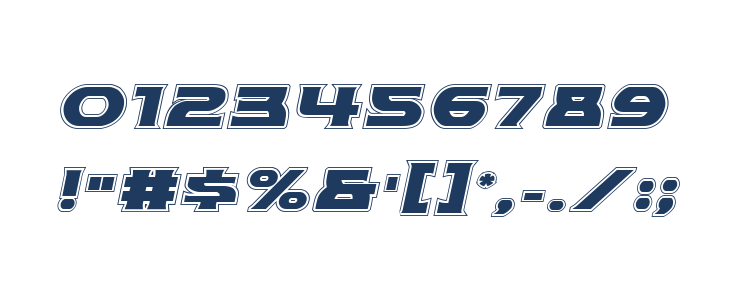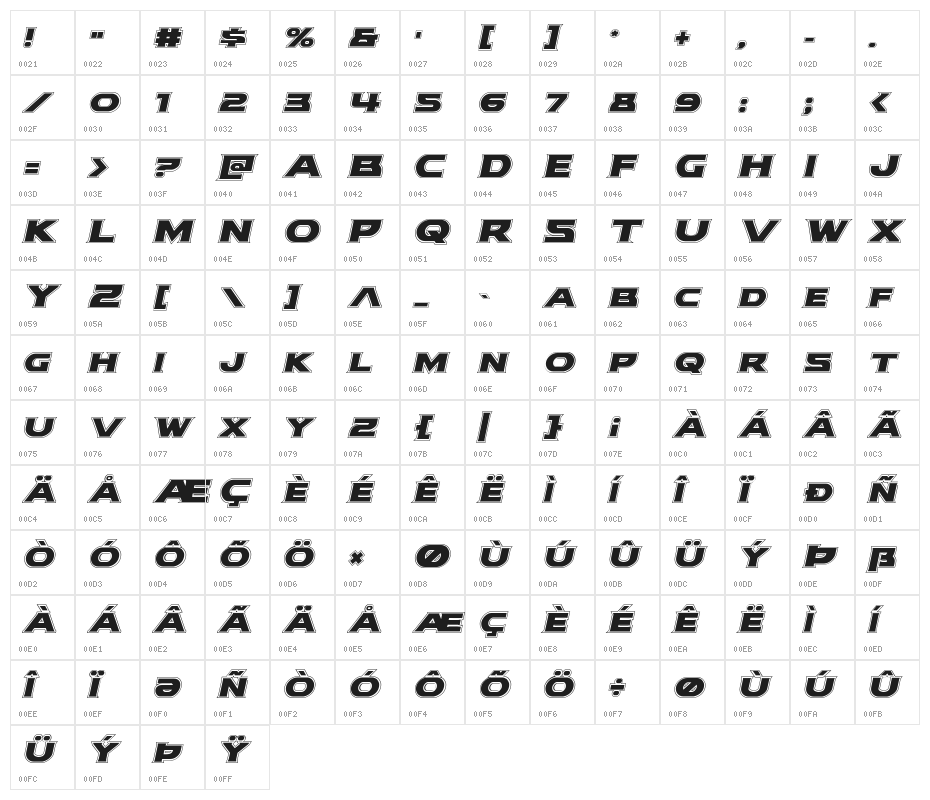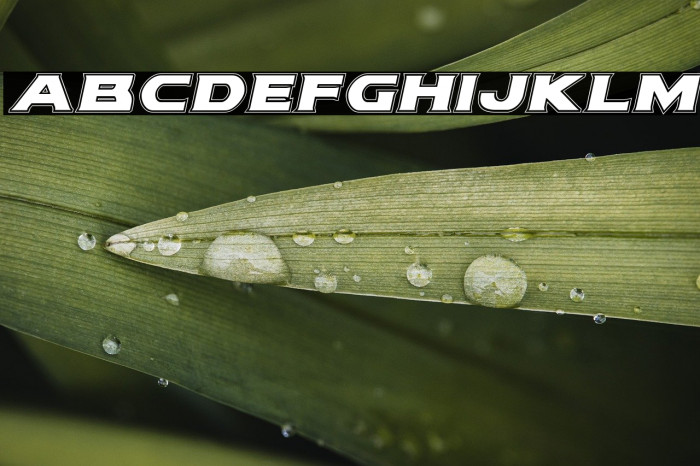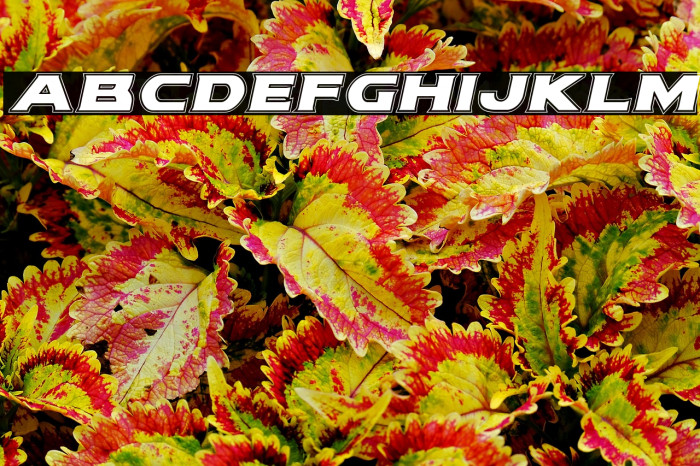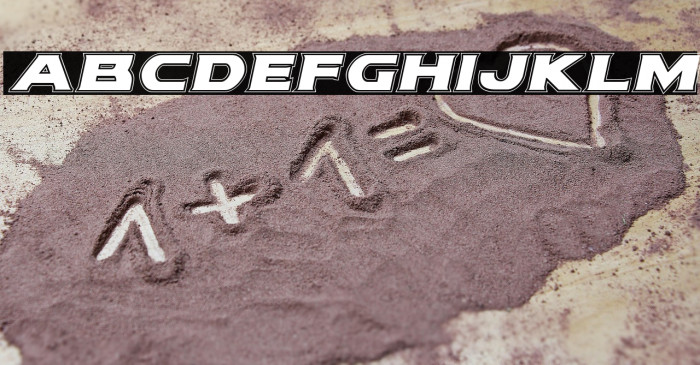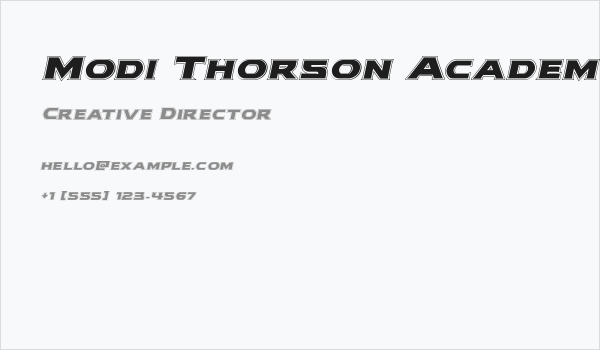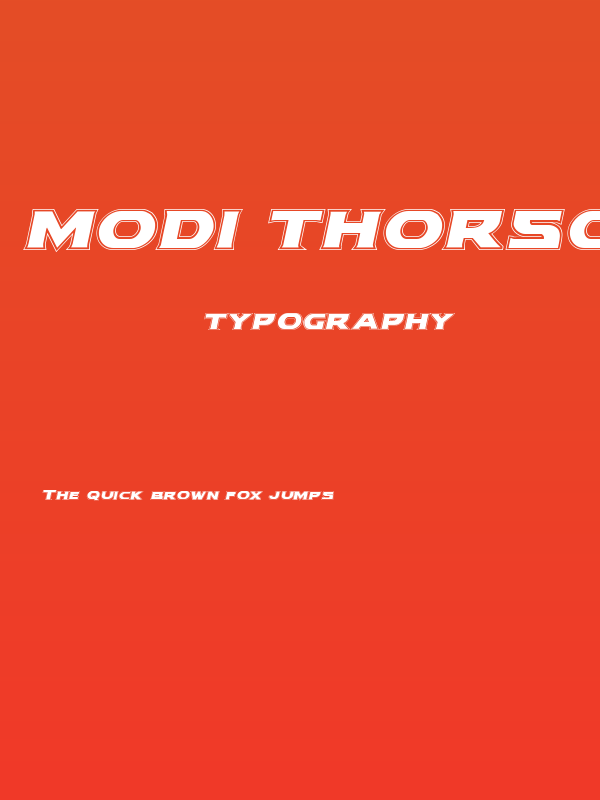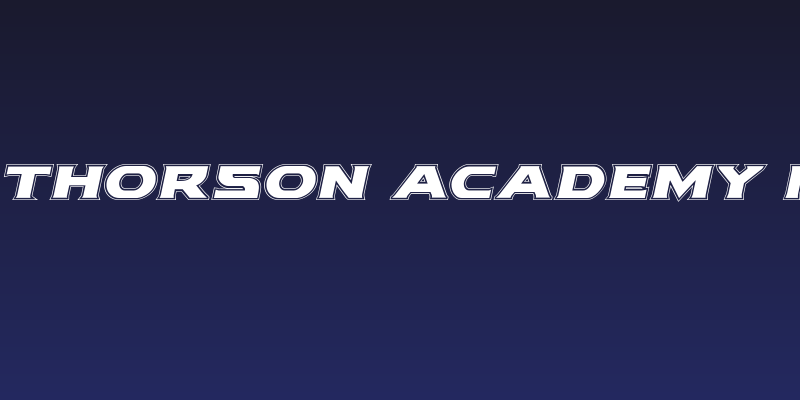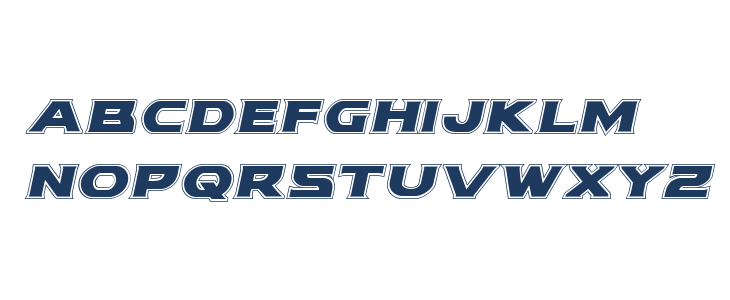
Modi Thorson Academy Italic Font
Modi Thorson Academy Italic Description
This font features a bold and dynamic style with a strong geometric influence. The characters are italicized, giving a sense of motion and energy. Each letter is outlined with a thick border, adding depth and a three-dimensional effect. The font maintains a consistent weight across all characters, ensuring uniformity and balance. The uppercase and lowercase letters are well-proportioned, with a slight slant that enhances the italicized appearance. The numerals and special characters are designed to match the bold and energetic style of the alphabet, making this font suitable for impactful and attention-grabbing designs.
| Proposed Projects | Ideal for sports branding, action-themed posters, video game titles, and dynamic advertising campaigns. |